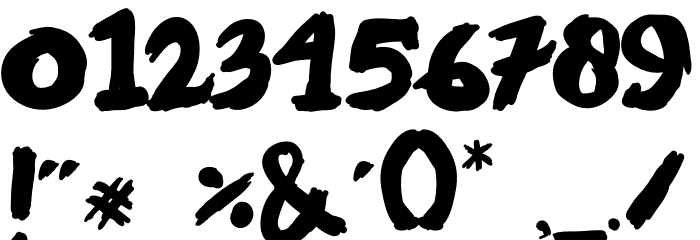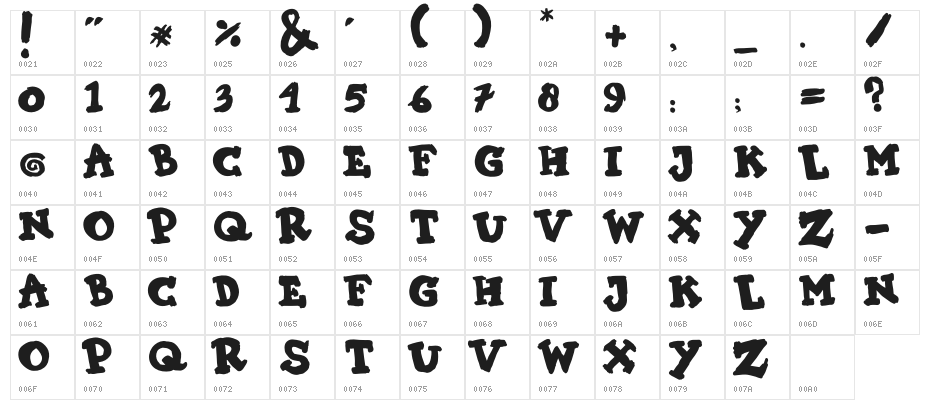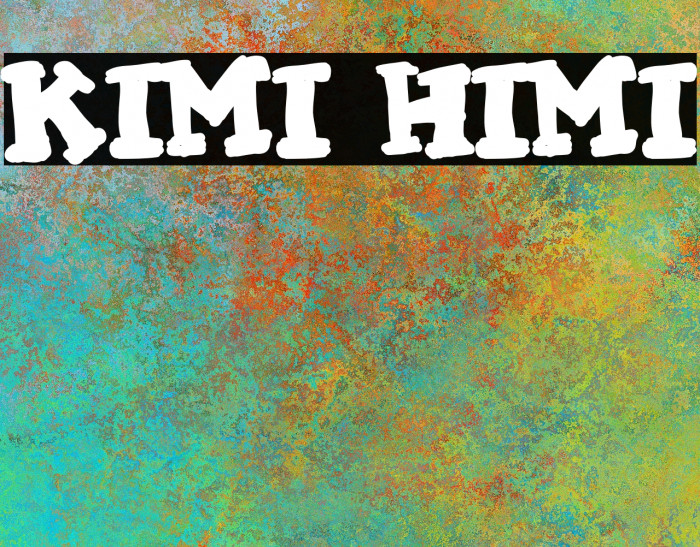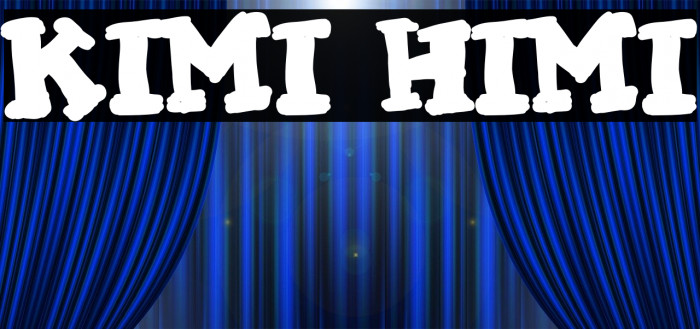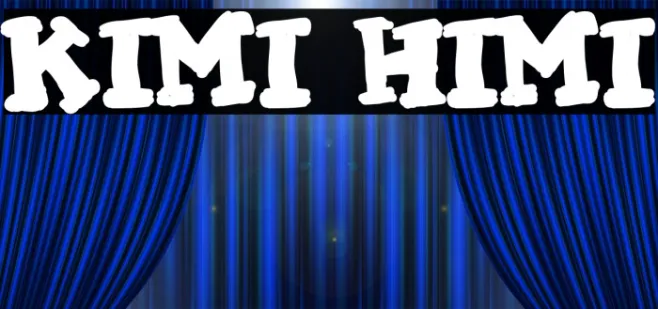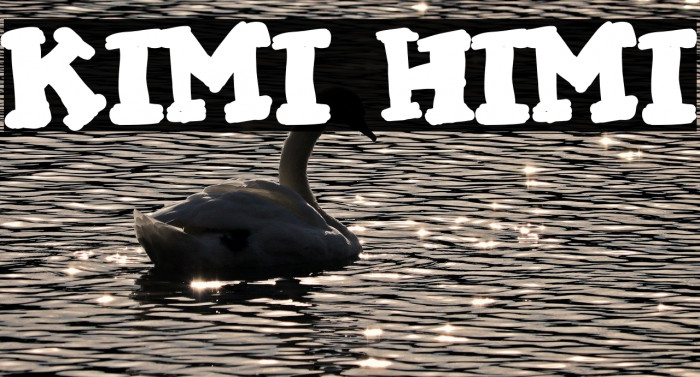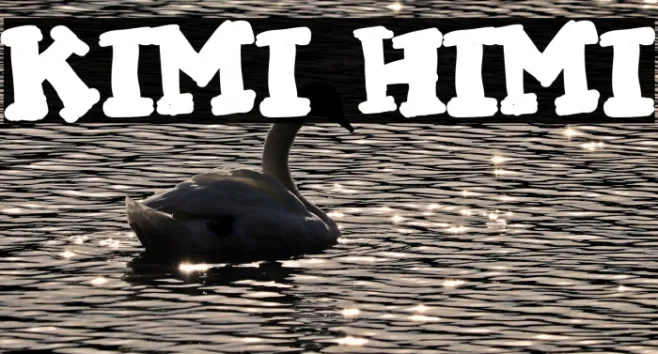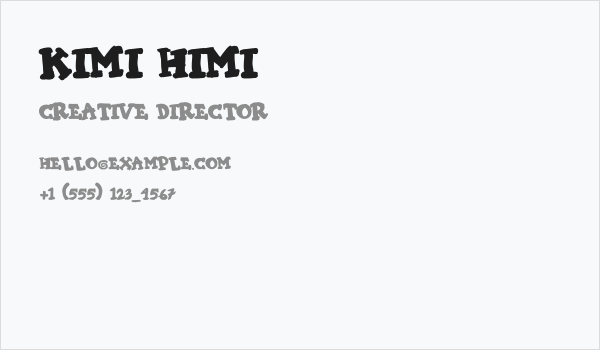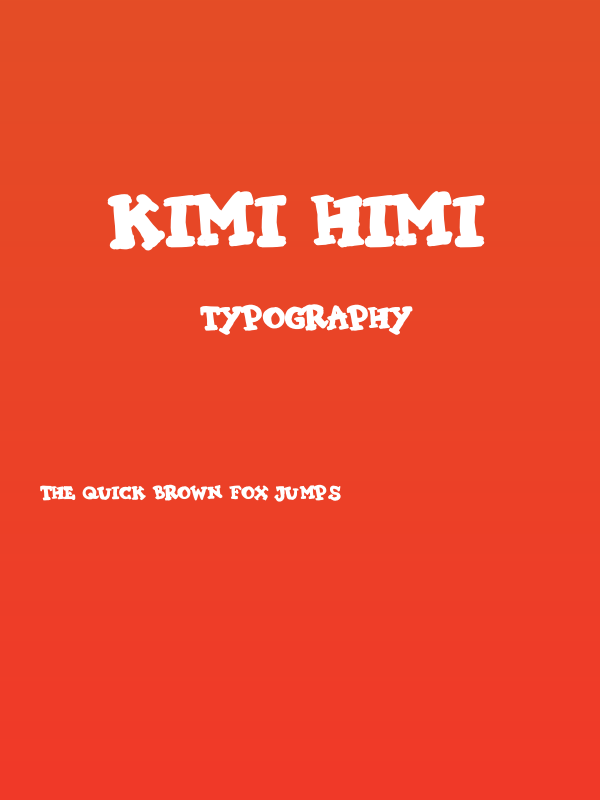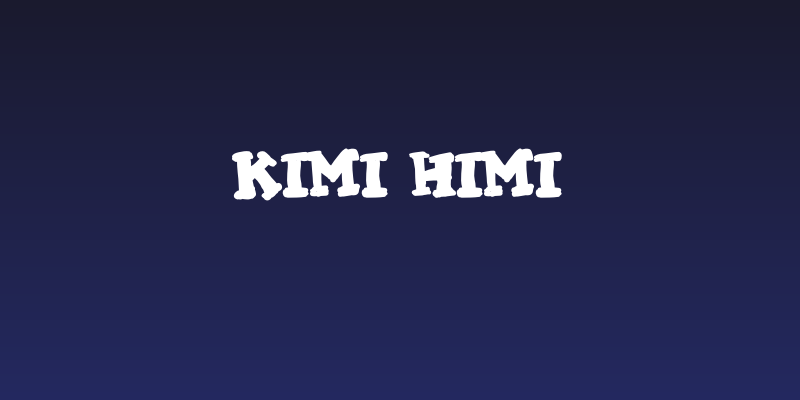
KIMI HIMI Font
KIMI HIMI Description
This font features a bold and playful style with a hand-drawn appearance. The characters are thick and slightly irregular, giving them a lively and energetic feel. The uppercase and lowercase letters maintain a consistent weight, while the numbers and special characters complement the overall aesthetic. The strokes are rounded and full, contributing to a sense of friendliness and approachability. This font is ideal for projects that require a fun and informal touch, such as children's books, posters, or playful branding.
| Overall Style | Playful, Energetic, Hand-drawn |
| Proposed Projects | Ideal for children's books, playful posters, branding, and informal designs. |